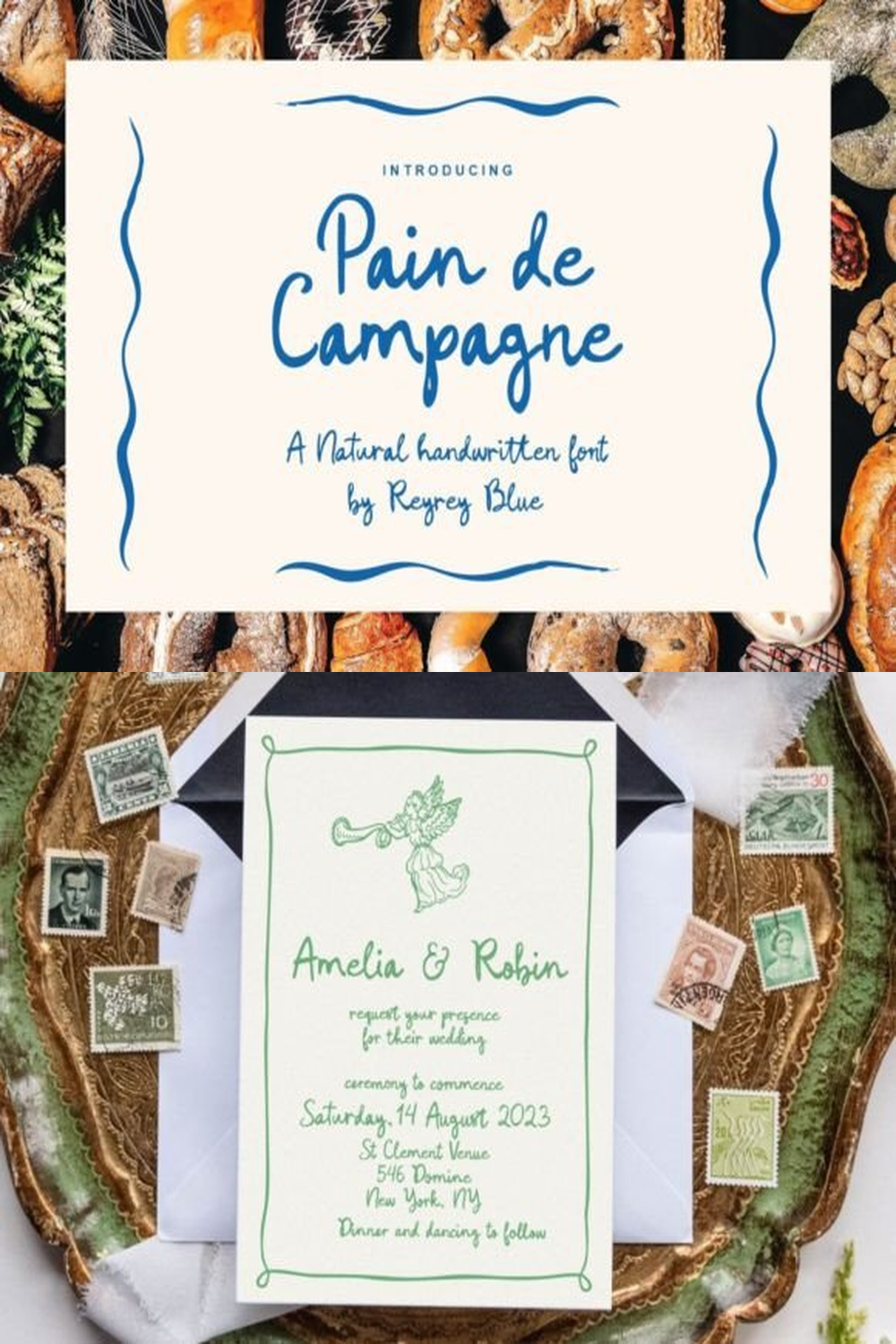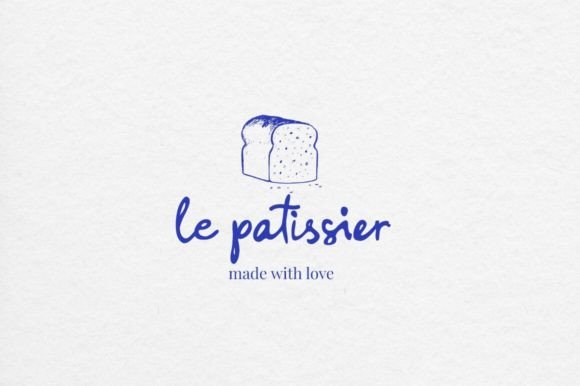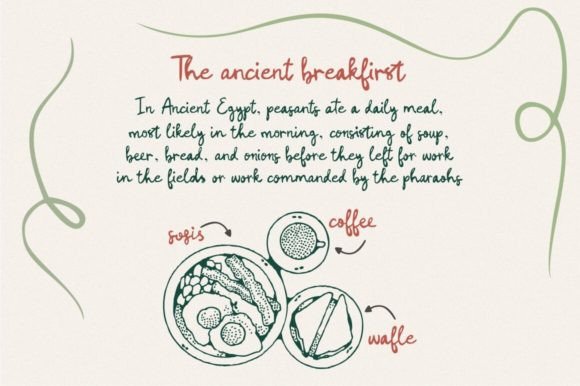
Pain De Campagne Font
About the Pain De Campagne Font
The Pain De Campagne Font offers a perfect balance of form and function for your design needs. Pain De Campagne is a delightful handwritten script font that exudes warmth and charm. Its organic strokes and playful curls evoke the feeling of a rustic countryside bakery. Perfect for invitations, packaging, and branding, Pain De Campagne adds a cozy and inviting touch to any project.
Its friendly, approachable style makes it ideal for projects emphasizing artisanal quality or a handcrafted aesthetic. Consider using it for logos, short-form marketing materials, signage, or food-related branding. Avoid using Pain De Campagne for large blocks of text or UI elements; its highly decorative nature compromises readability in extended use.
Pairing it with a clean sans-serif like Open Sans for body copy or a more geometric sans-serif like Montserrat for a modern feel creates a pleasing contrast. For a more rustic look, a complementary serif font like Playfair Display could work well. Conversely, a simple, light script font could enhance its charm without overwhelming the design.
Pain De Campagne’s overall personality is best described as warm and inviting, with a touch of rustic charm. It evokes feelings of comfort and authenticity, making it a suitable choice for brands that prioritize those values.
Pain De Campagne Font Usage Examples
Pain De Campagne Font Example